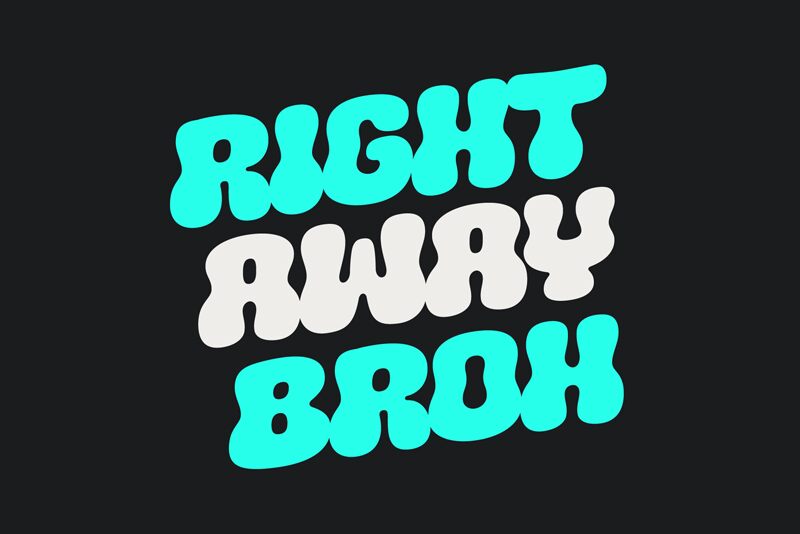
Hopalope Bubble bursts onto the scene with a playful and groovy demeanor that's hard to ignore. Crafted by Eko Bimantara, this member of the Hopalope family exudes a bold, bubbly charm that's both nostalgic and contemporary. Its curvaceous characters boast generous shapes that dance along the baseline, inviting a sense of fun and creativity.
With its distinctly bold silhouette, Hopalope Bubble is perfectly suited for eye-catching headings, vibrant logos, and any design space that calls for a touch of whimsy without sacrificing impact. Whether it's on a poster for a music festival or the branding for an artisanal ice cream shop, this font is sure to infuse your project with an infectious energy that captivates and delights audiences.